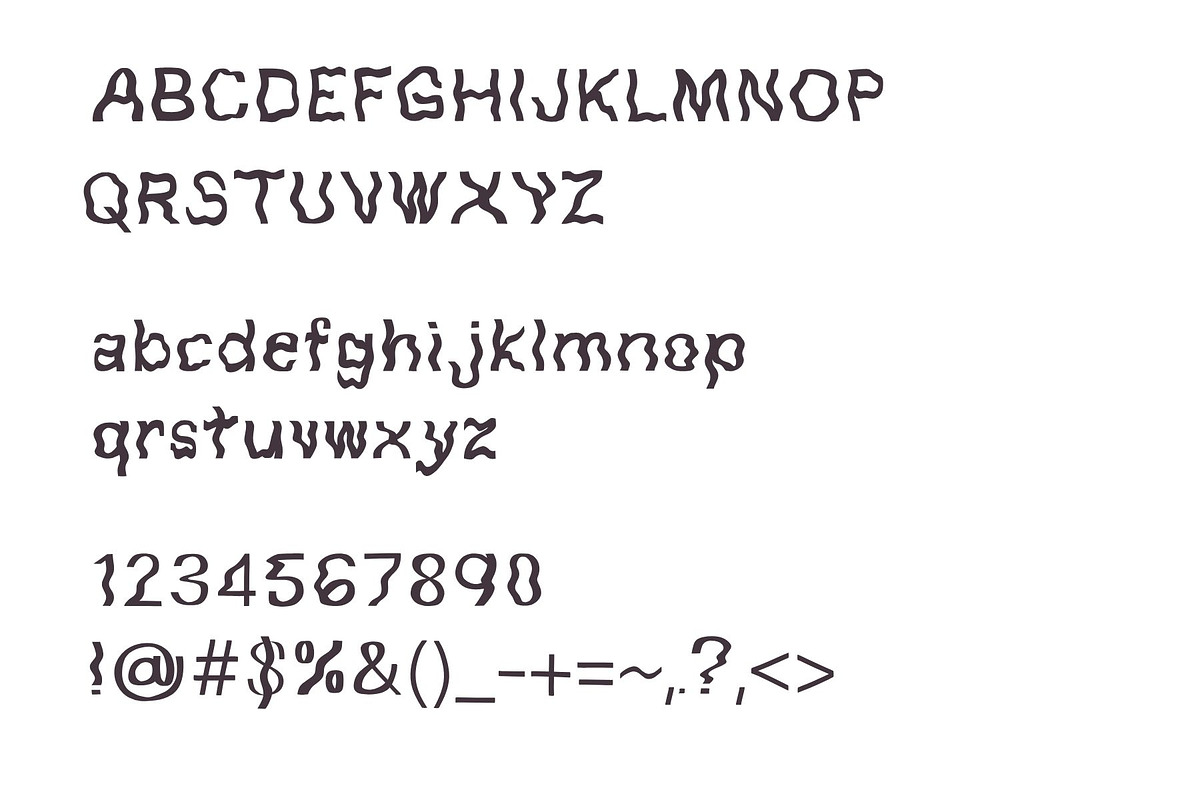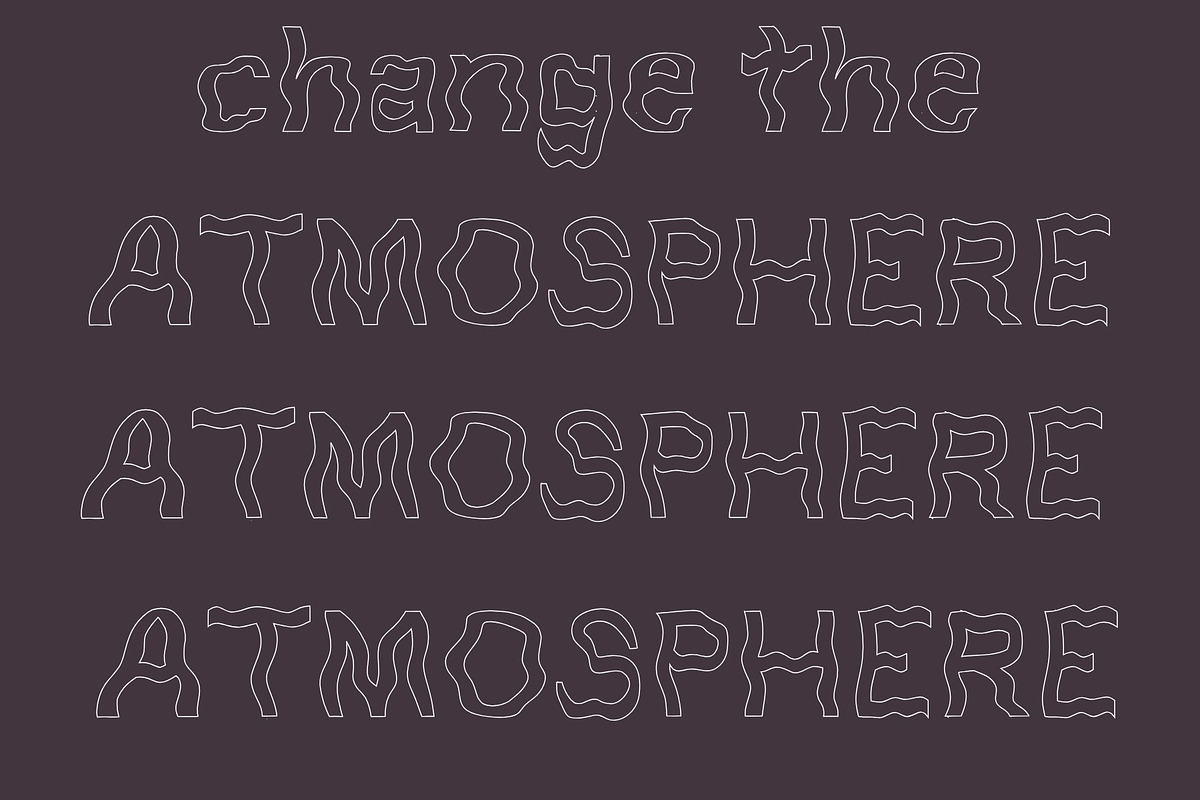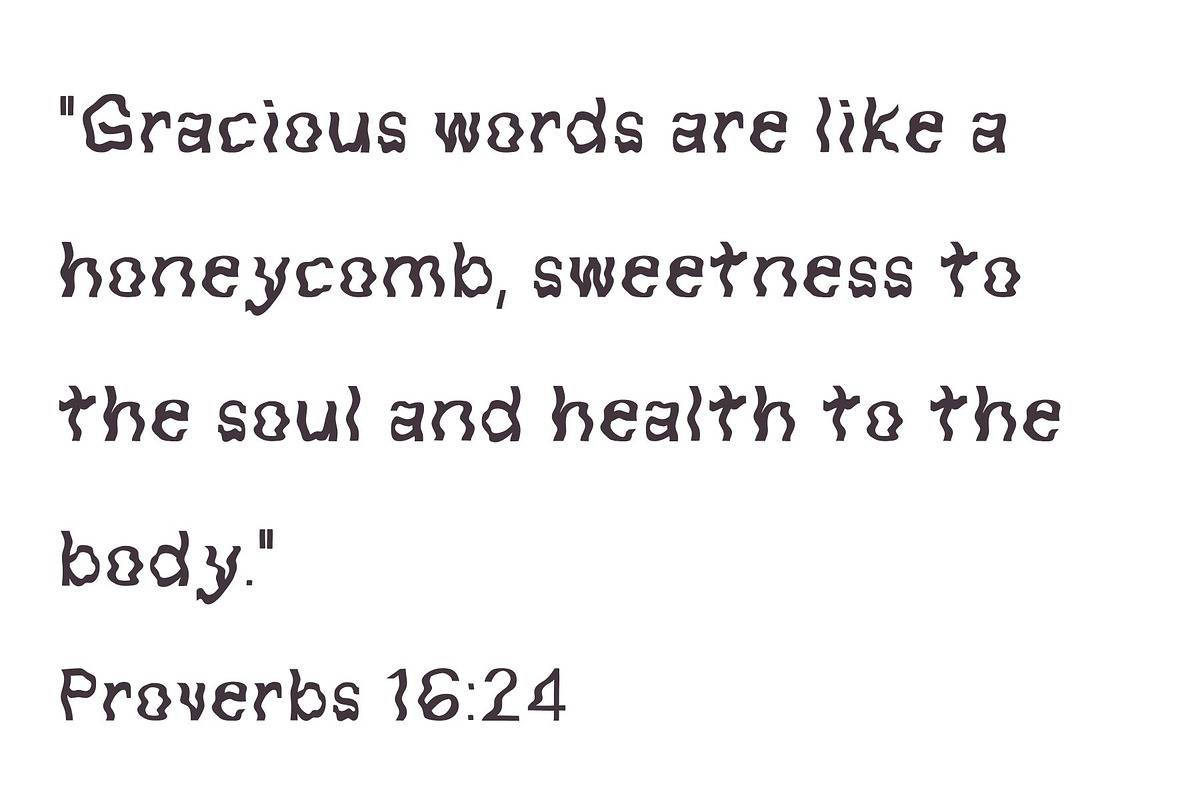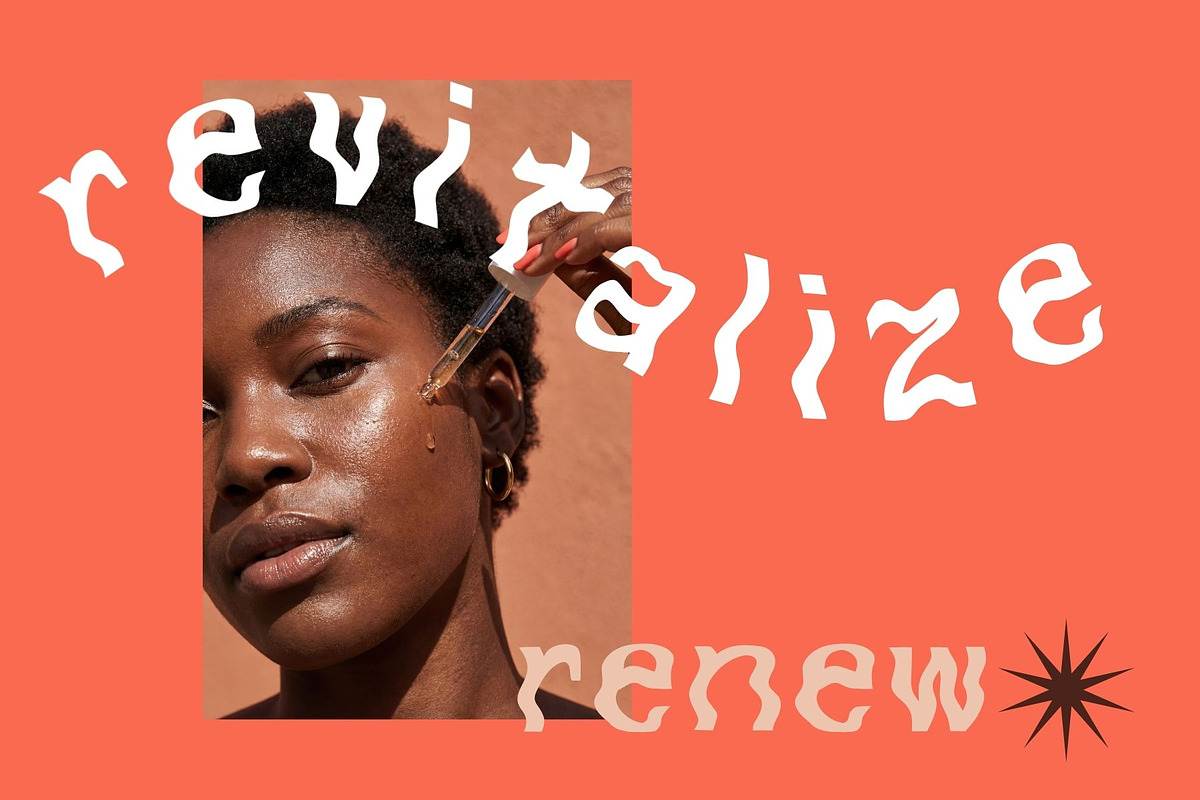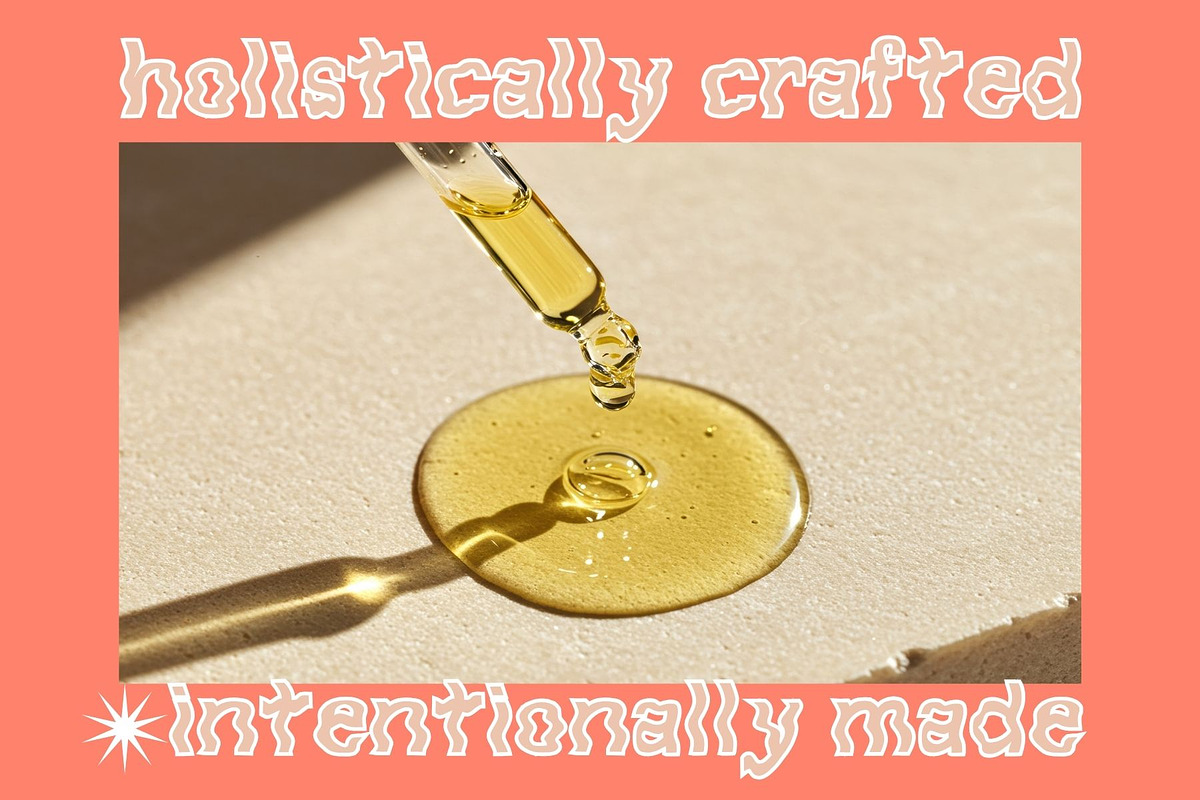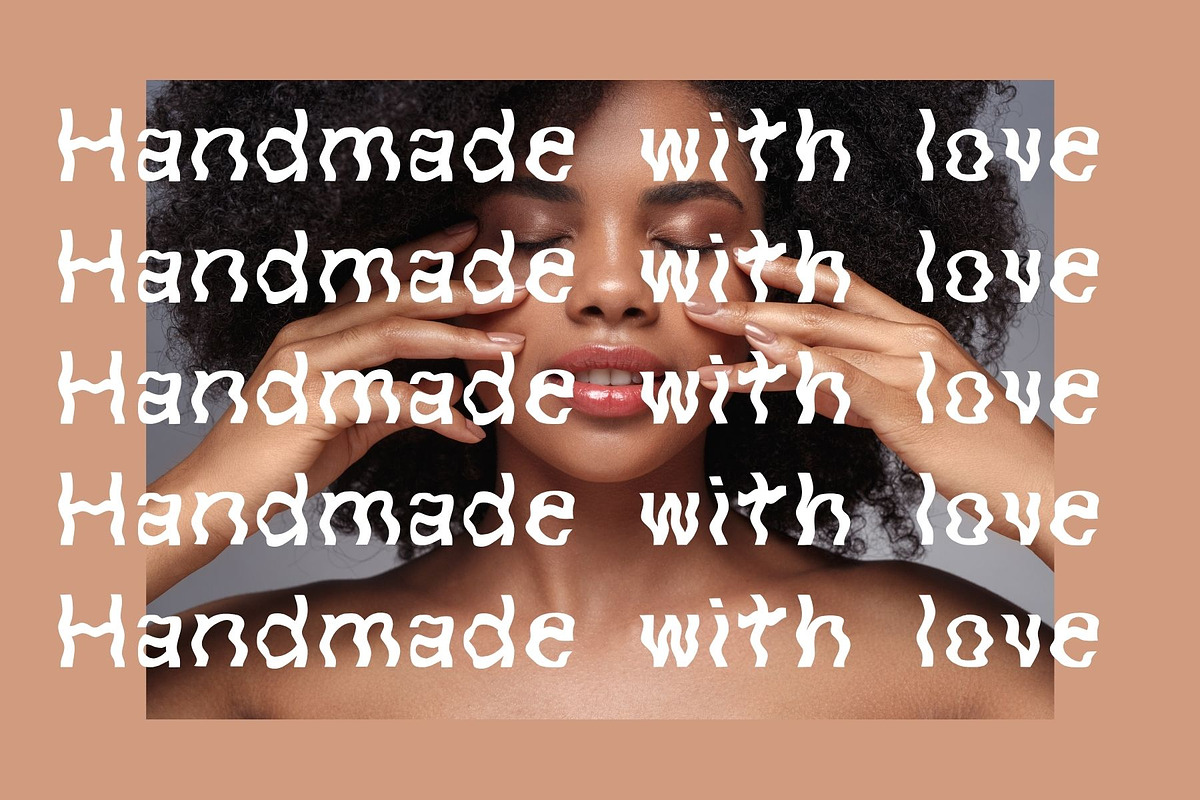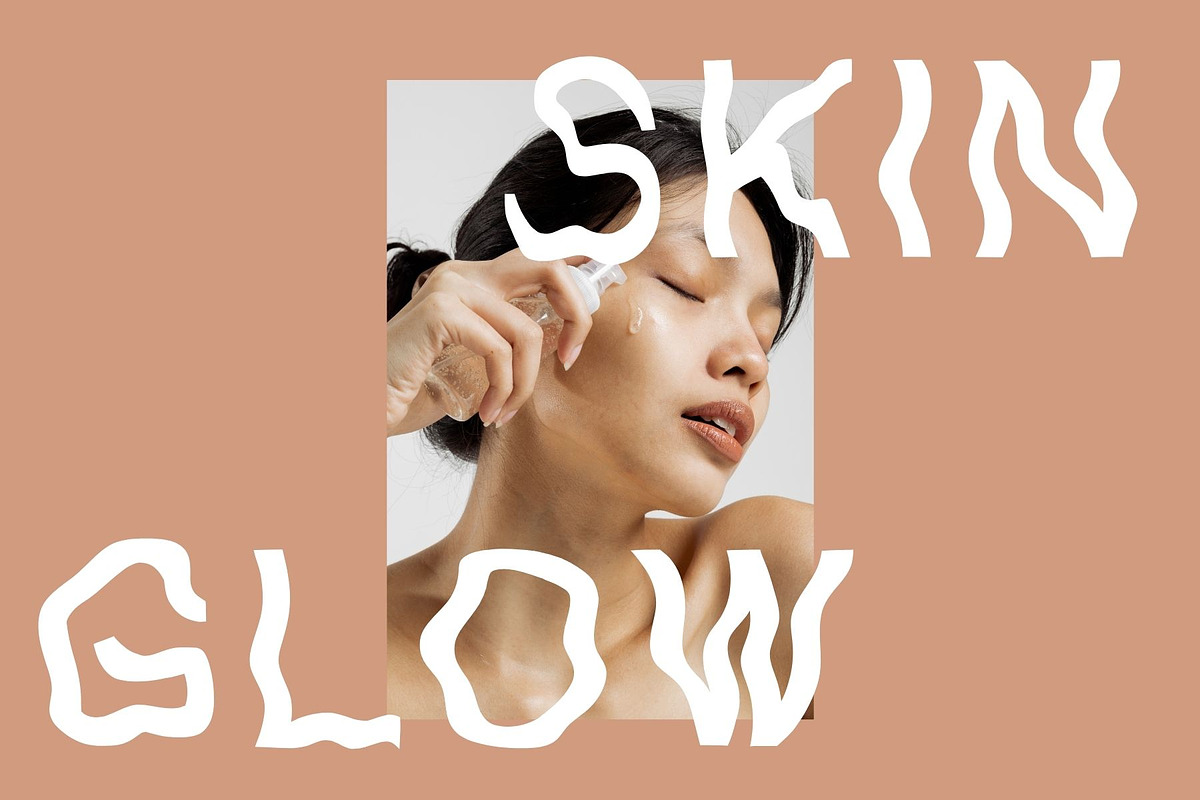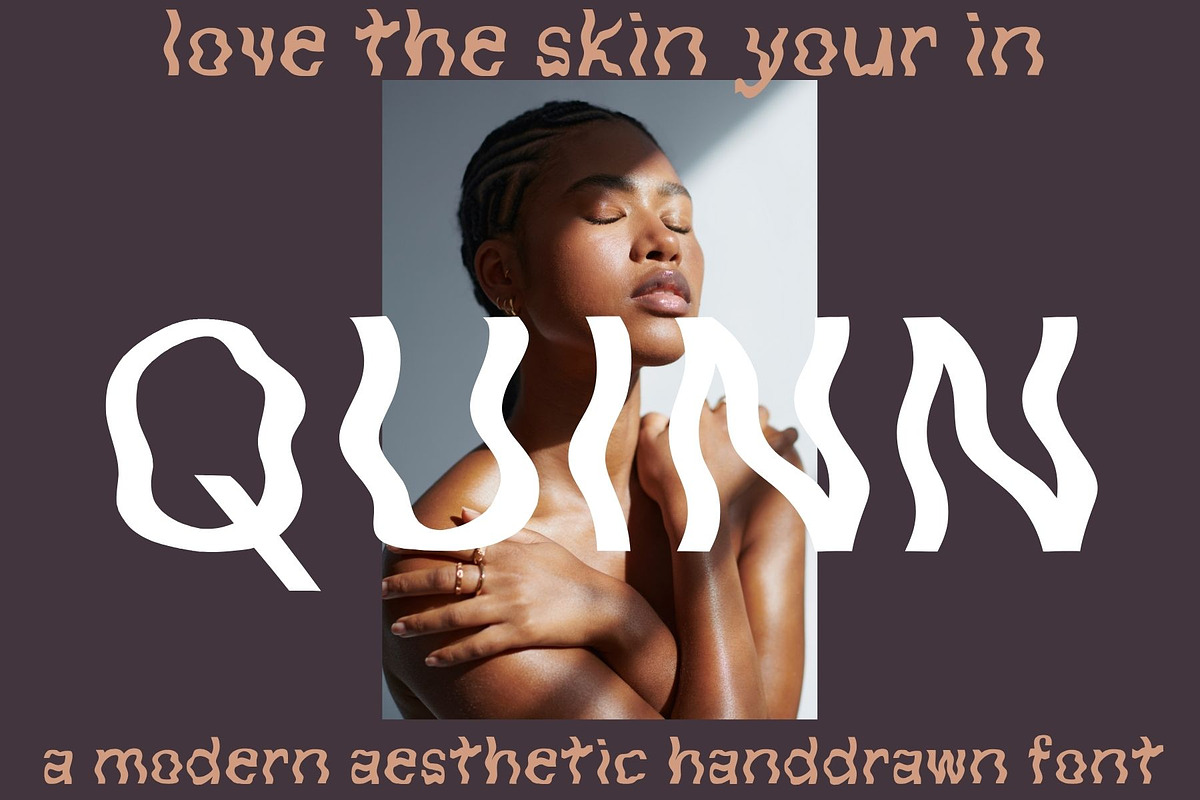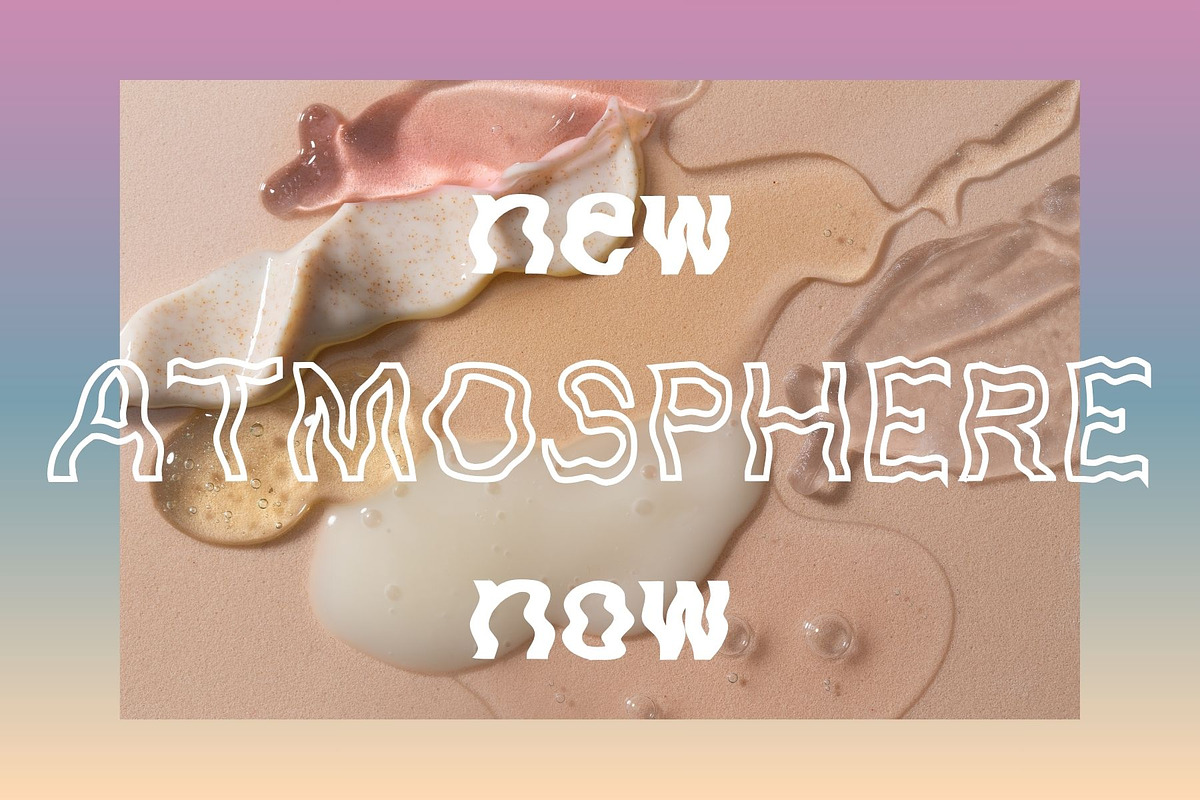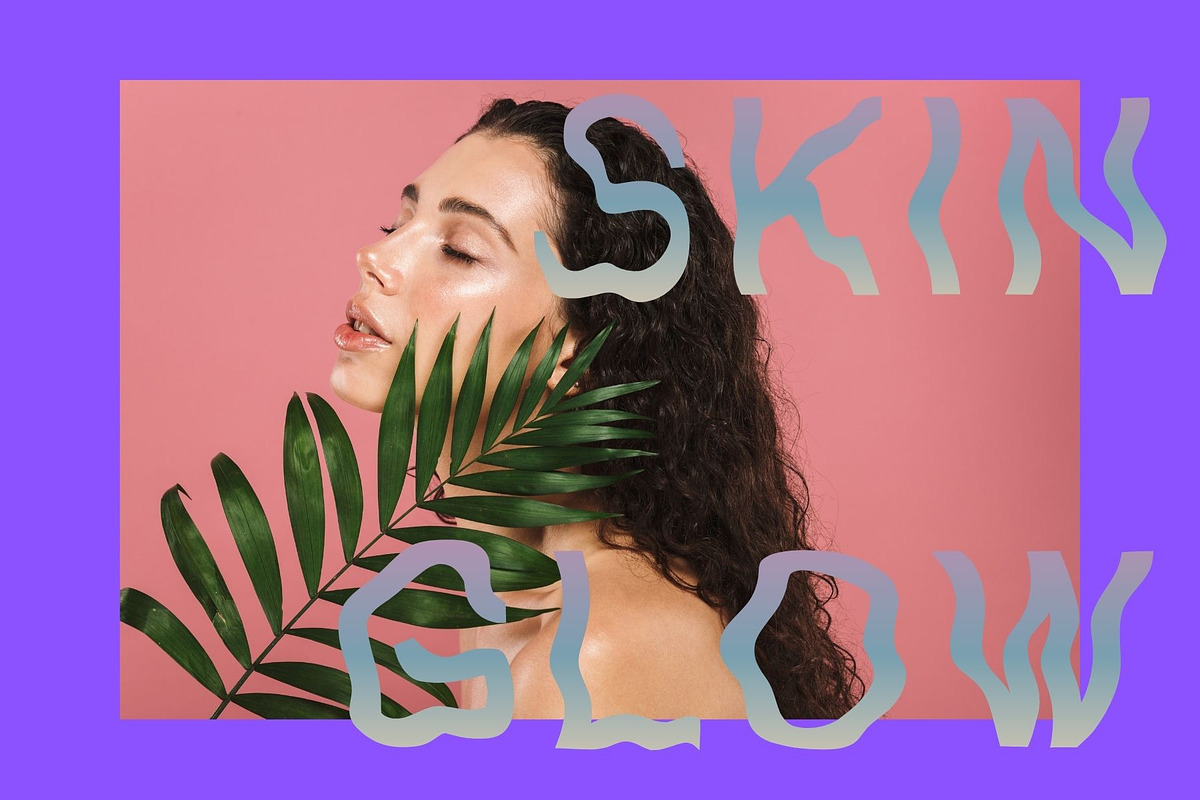
Quinn an aesthetic handlettered font
Quinn is a carefully hand-crafted, modern wavy font.
You won't find this font anywhere, it's on trend, yet, completely new and original in craftsmanship and style. Quinn is perfect for the brands that set trends, not follow them. This font is upscale, hip, catchy, elegant and aesthetic; sure to elevate your branding to the next level. You won't find these minimal , stylish waves anywhere else. Whether you are branding for a skincare line, clothing line, or need your social media to stand out, Quinn is sure to catch eyes and gain followers from her effortless charm and appeal. Happy Designing !